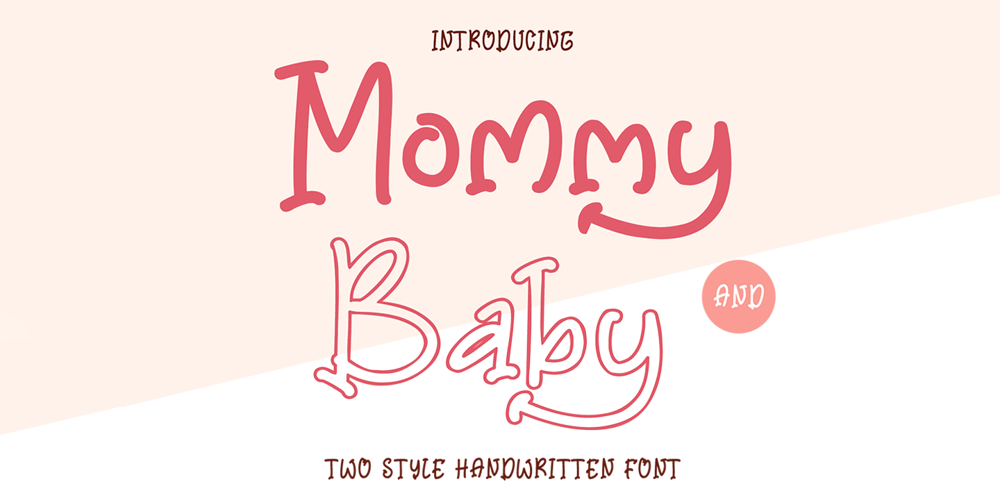
Mommy and Baby Font Family was designed by Aditiyo Dwi Putranto and published by Creaditive Design. Mommy and Baby contains 4 styles and family package options. Mommy and Baby is a modern display font that is readable, fun and stylish. It is defined by smooth curves and is perfect for sweet and funny branding. Add it confidently to your projects, and you will love the results.